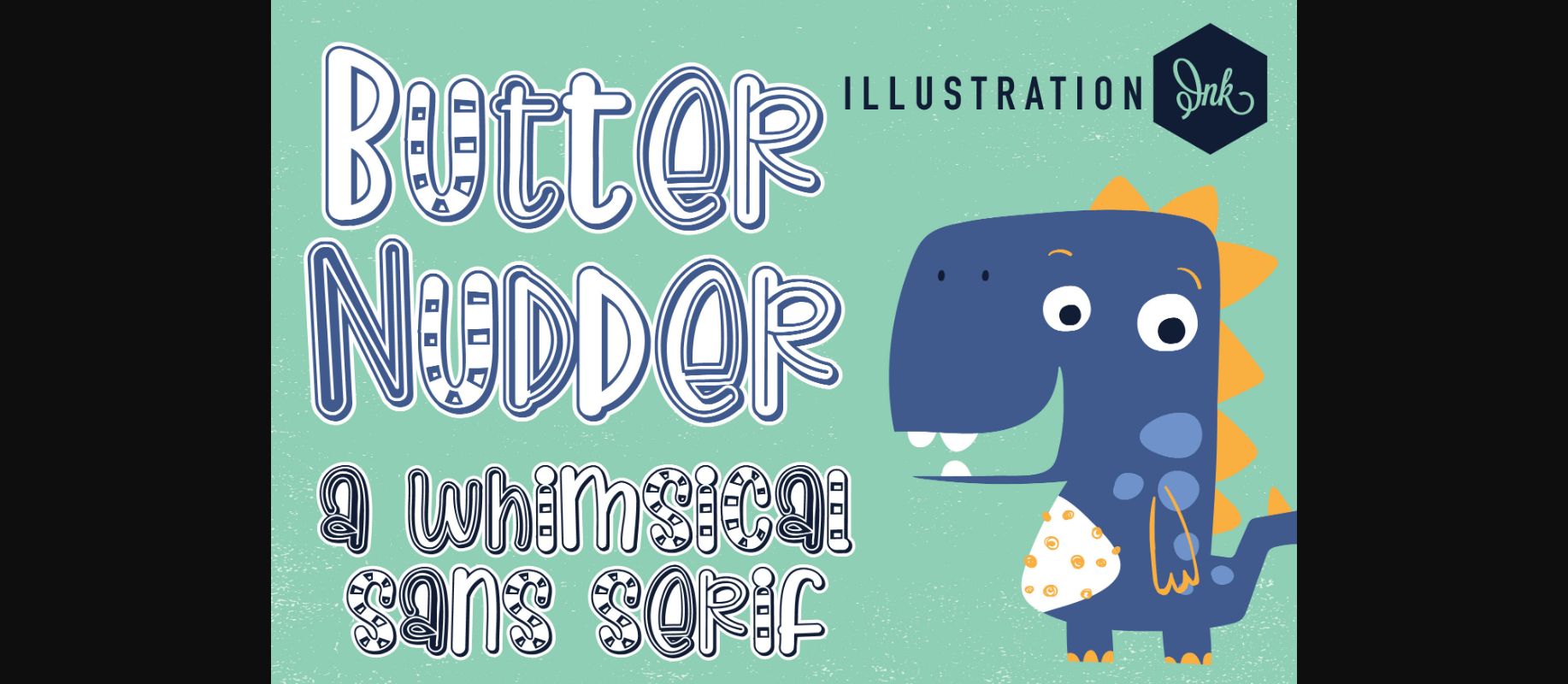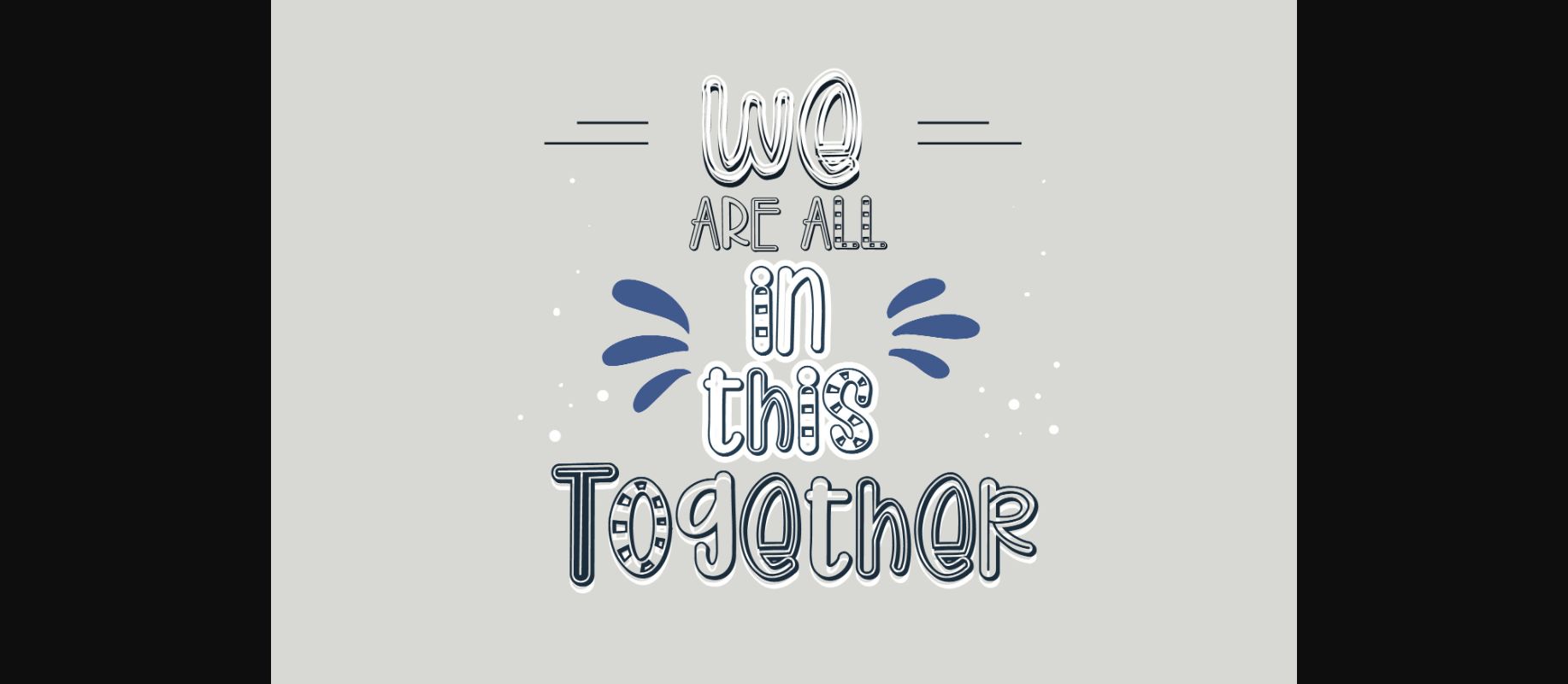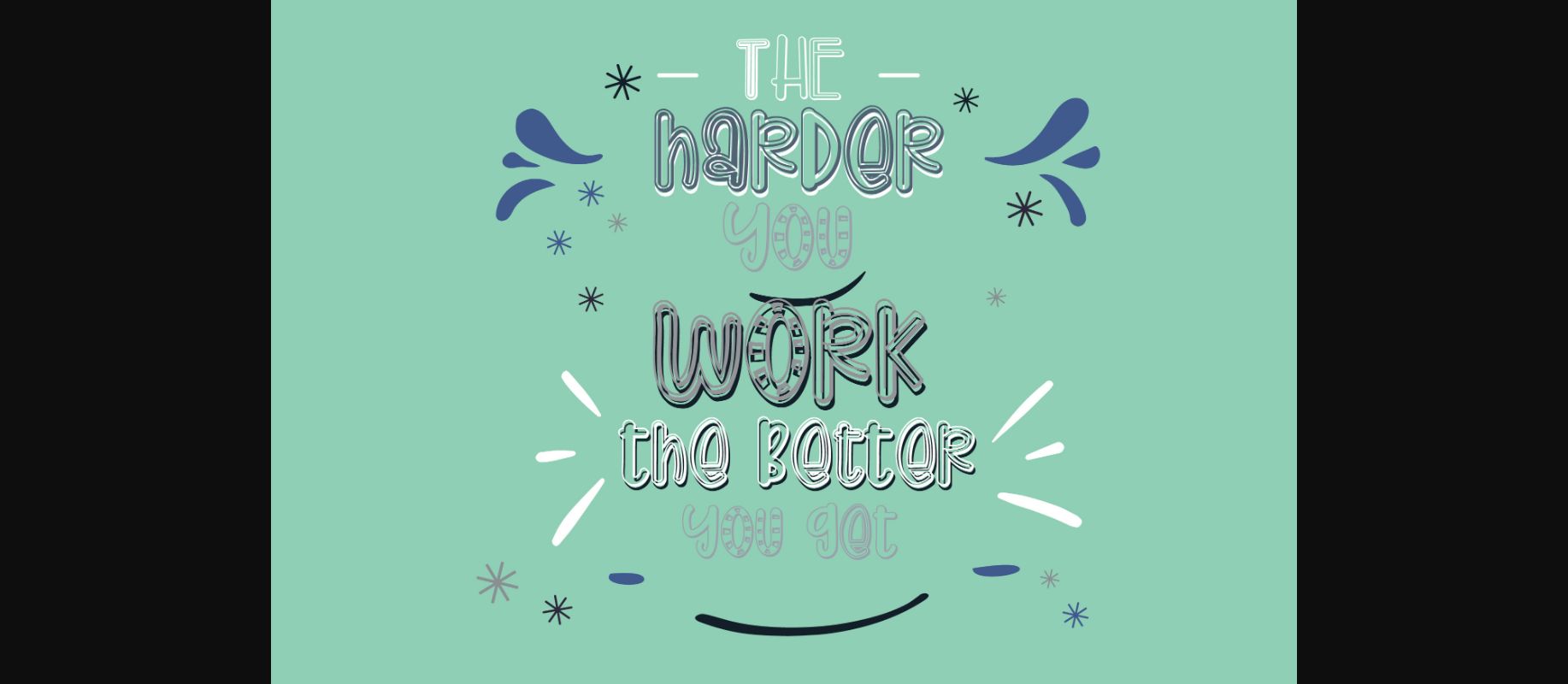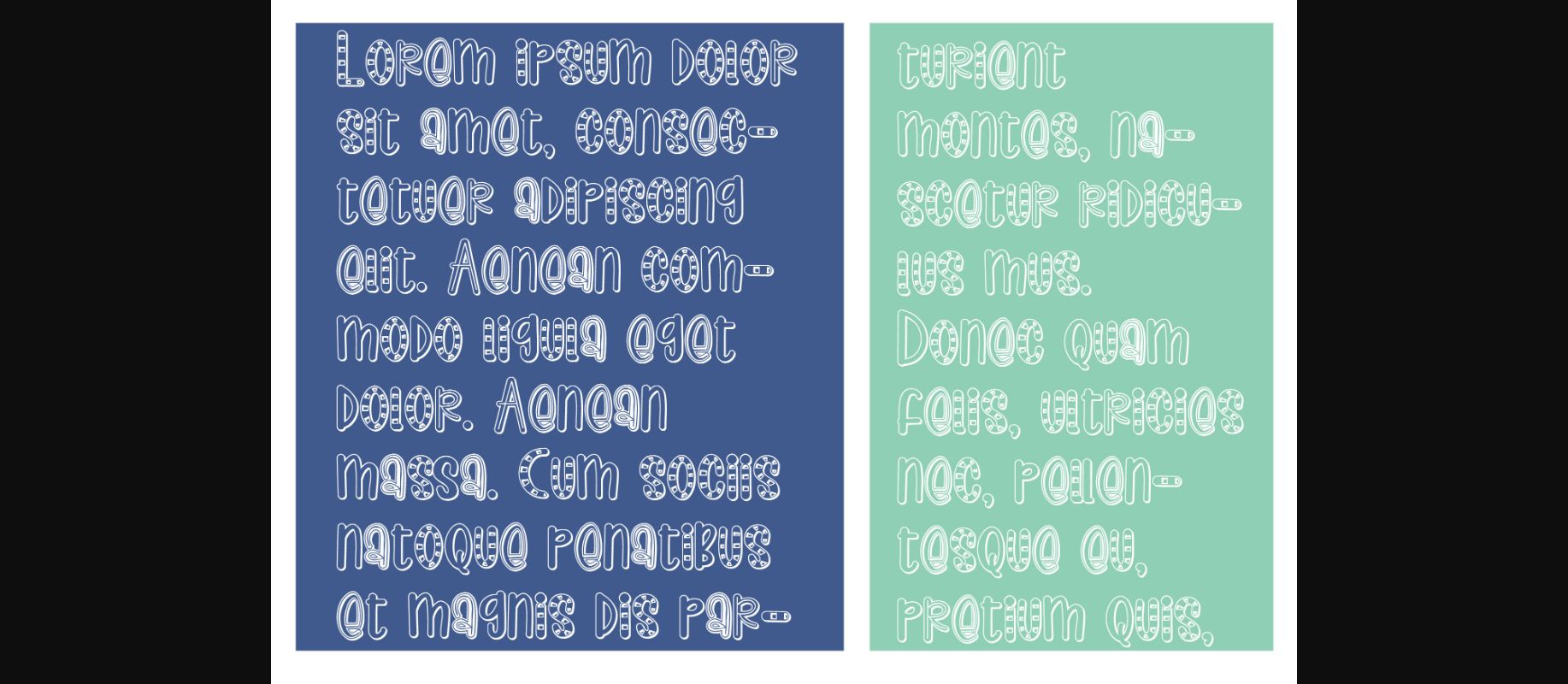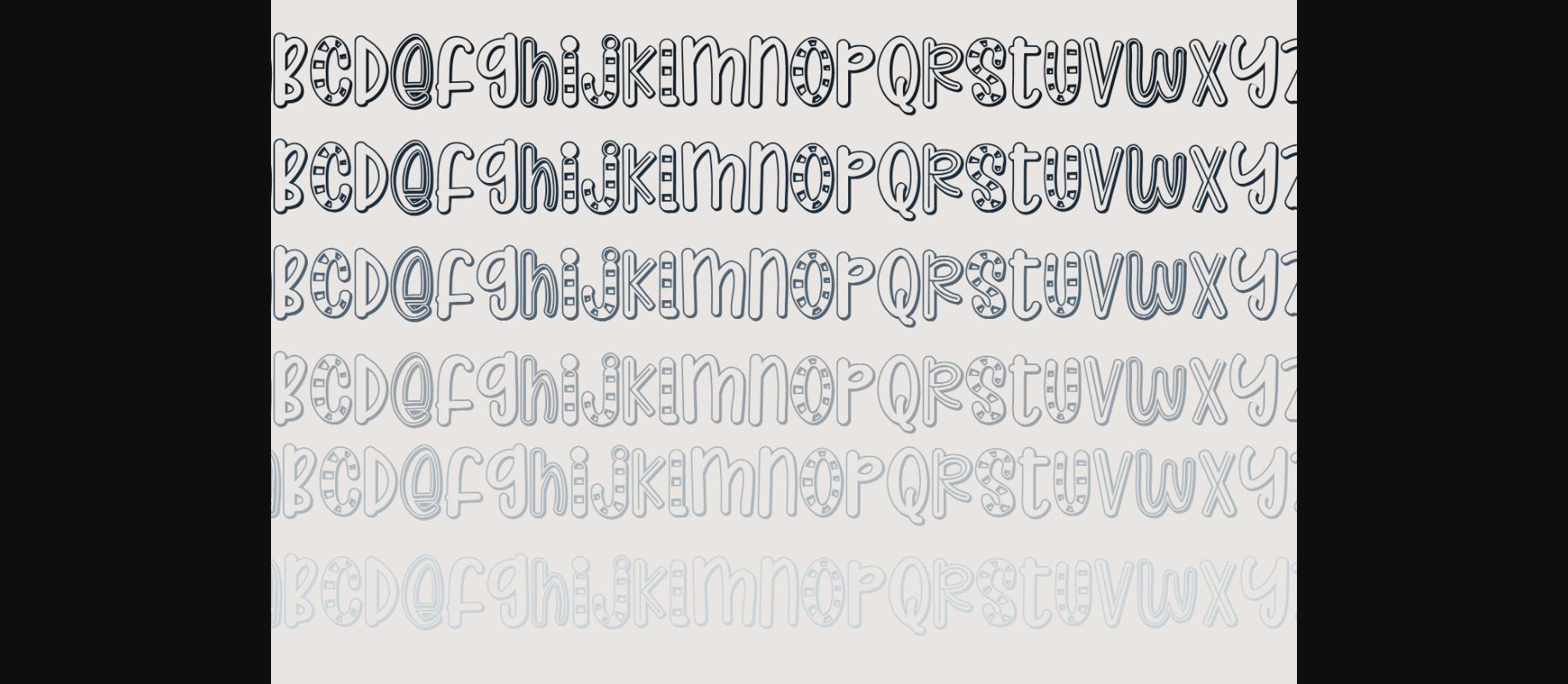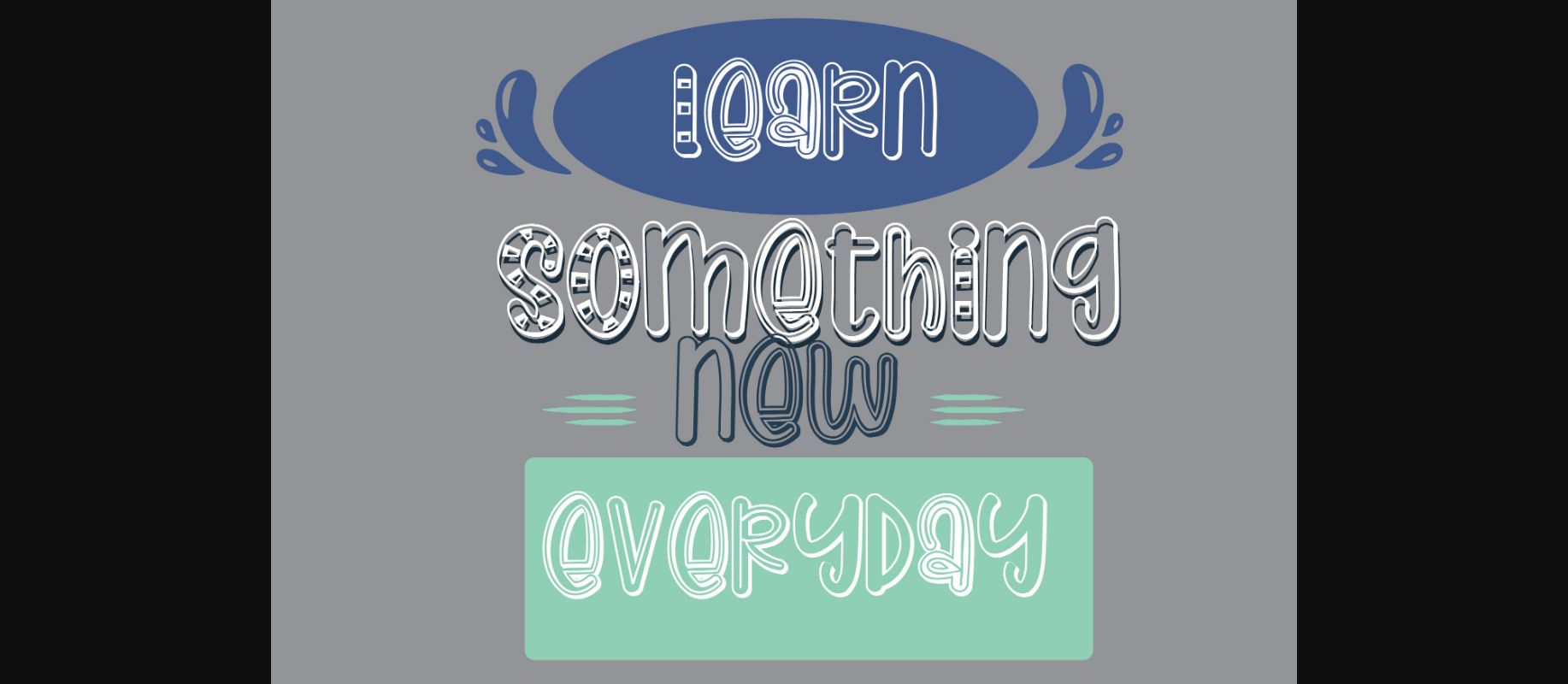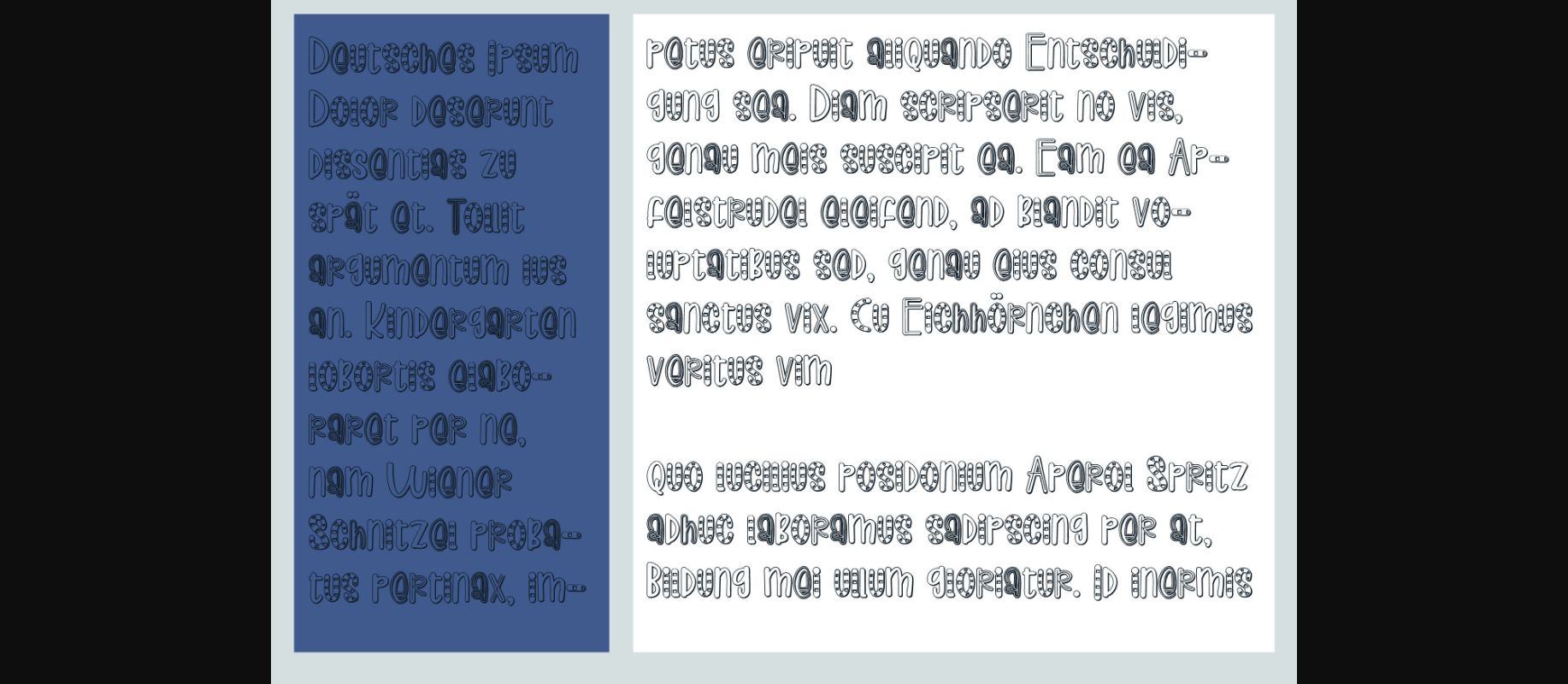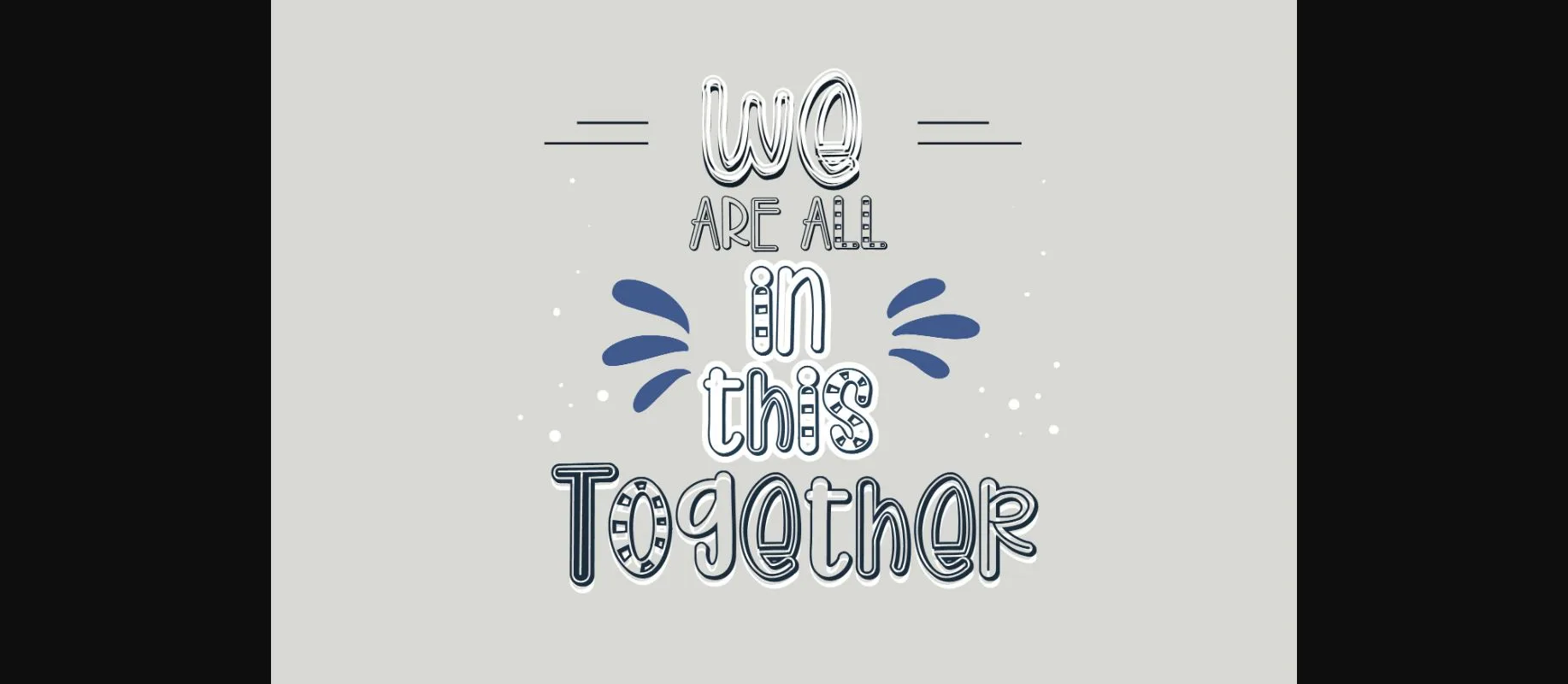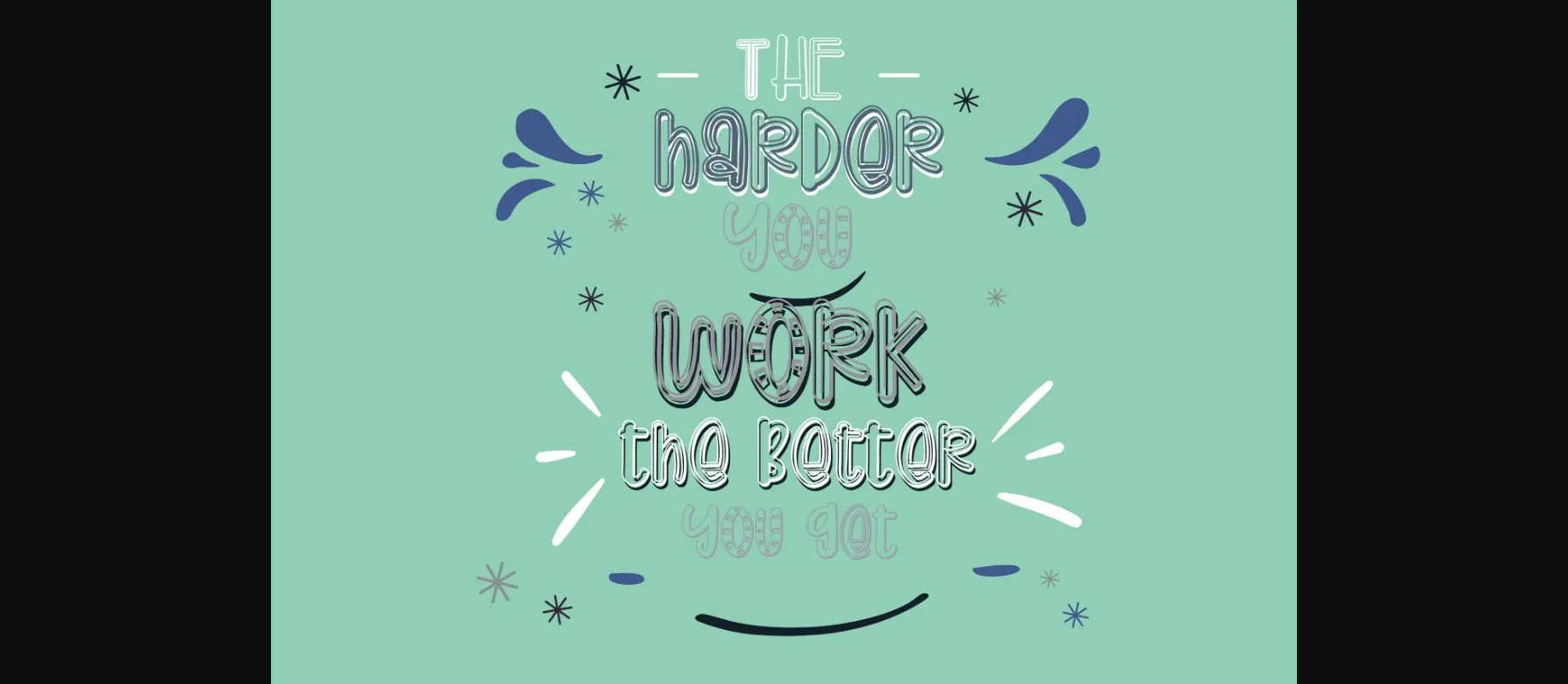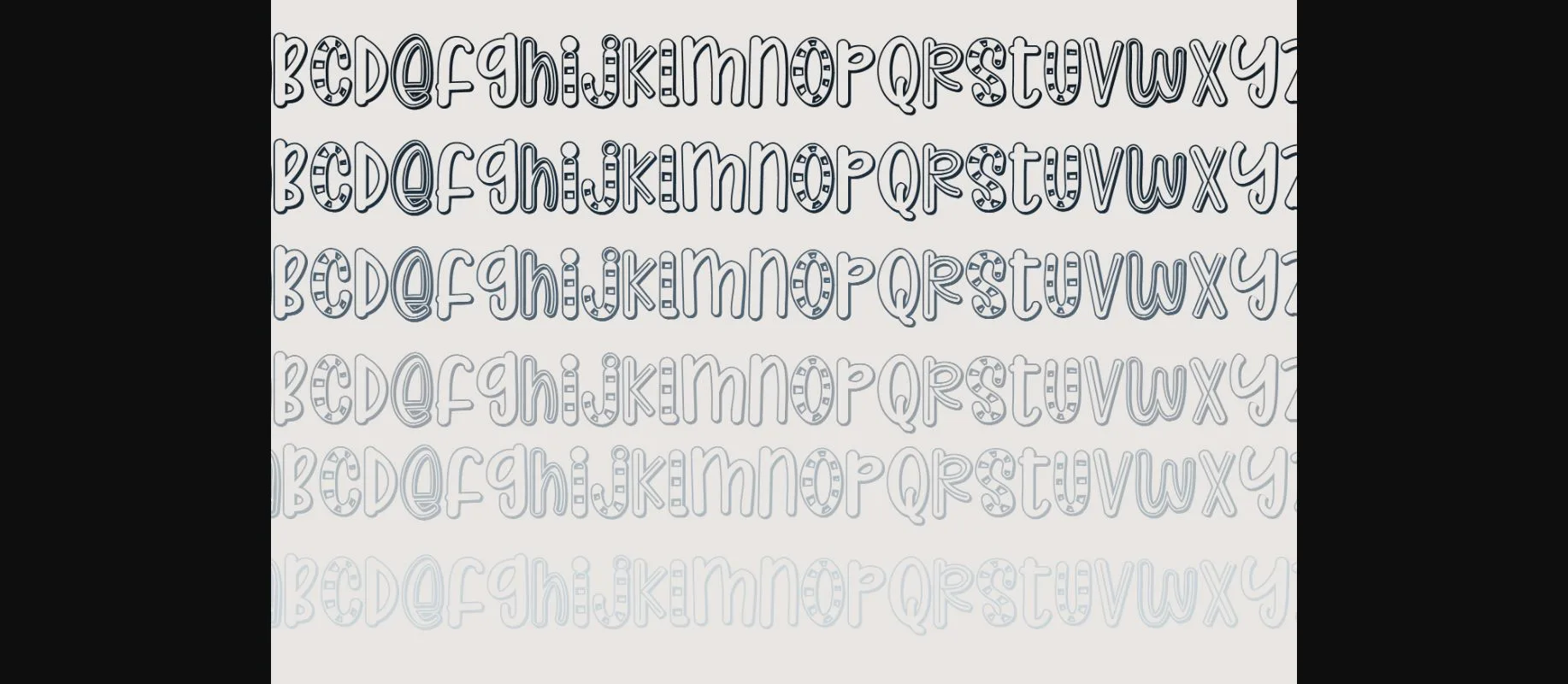
Butter Nudder Font
About Butter Nudder Font
This whimsical, hand-crafted font features a mix of styles, stripes, in-lines and more.
A hand-crafted font is a font that is designed to feel unique and crafty. It is often used for invitations, greeting cards, and other items. Hand-crafted fonts are typically informal and they can be used for a variety of purposes.
It’s hand-crafted, which means that each letter was individually drawn with care.
It has a unique, organic look that is sure to stand out.
It’s perfect for a variety of projects, from logos and websites to everyday text.